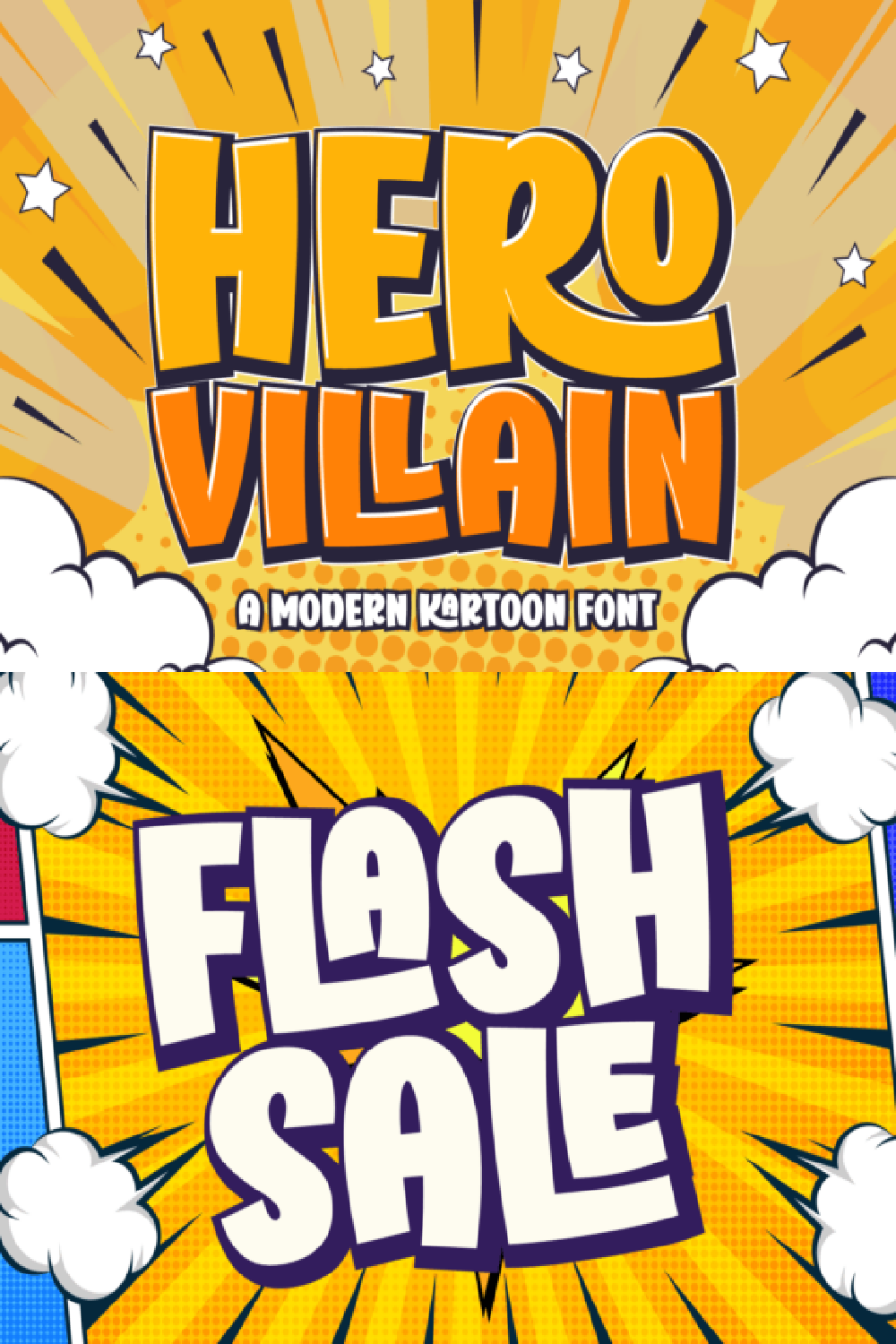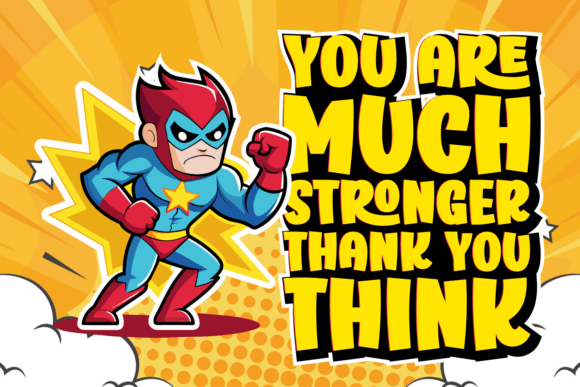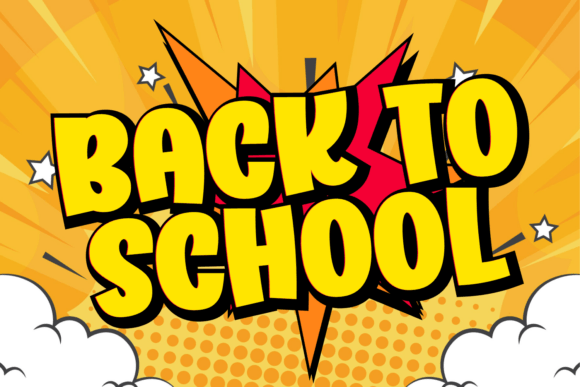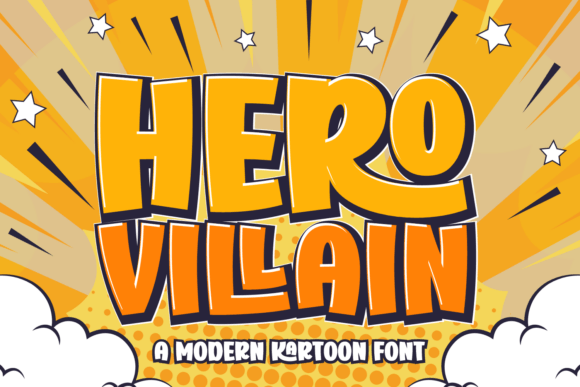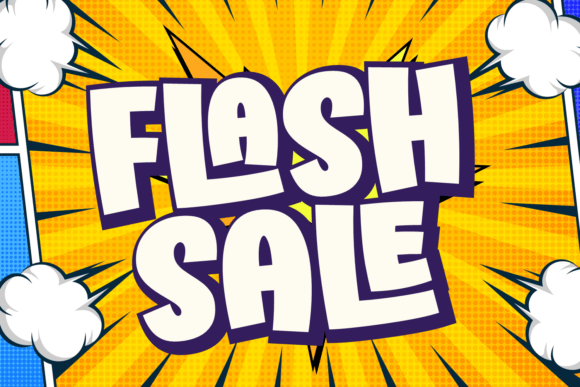
Hero Villain Font: Bold & Playful Display Font for Cartoon Titles
About the Hero Villain Font
Add a touch of class to your work with the Hero Villain Font, a truly exceptional typeface. Introducing Hero Villain, a playful, bold display font that exudes charisma and authenticity. Its robust lettering is perfect for a wide array of applications, effortlessly infusing confidence and charm into your message. Whether used for animating cartoon text, crafting eye-catching magazine covers, or accentuating the thrill in games, Hero Villain consistently adds a delightful touch to any design it graces. The font’s versatility makes it ideal for any project demanding a dash of jollity and buoyancy.